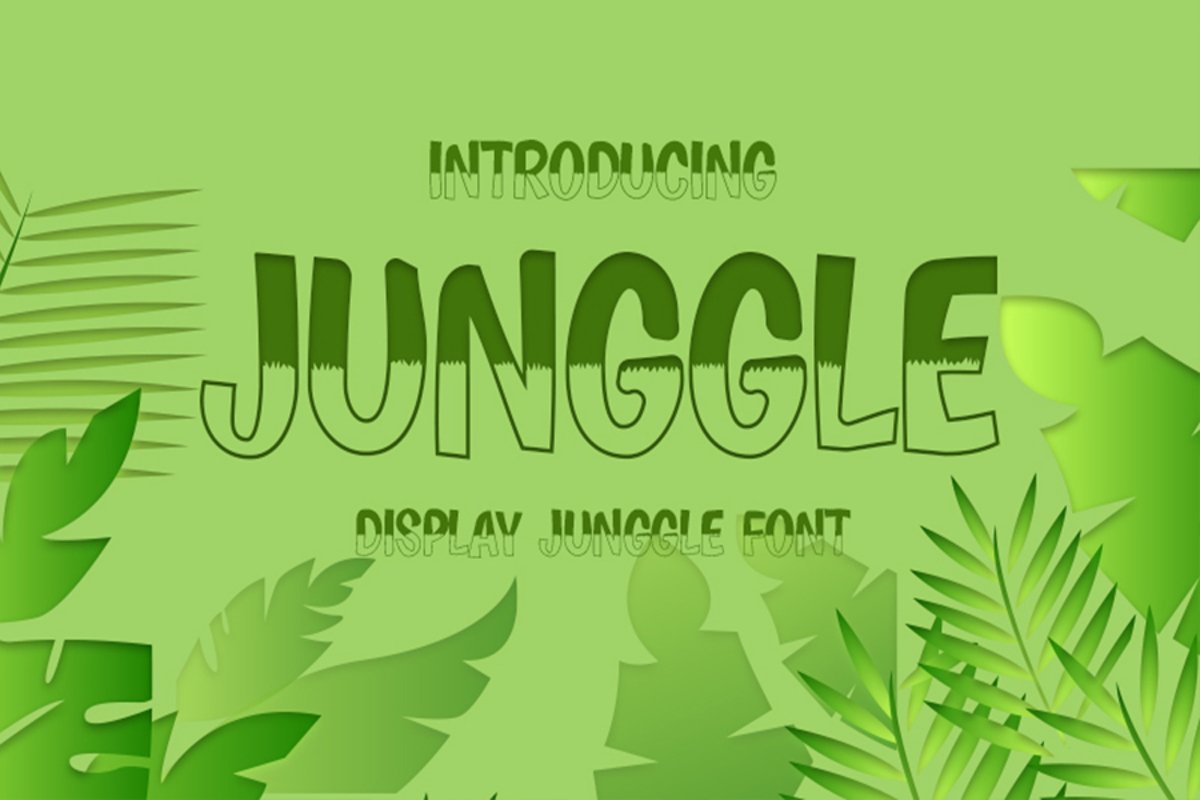
Junggle
JUNGGLE
Junggle is a fun display font. This enchanting display font will turn any creative idea into a true standout. Get creative with its childlike playfulness, and use it to brighten up any kids and school project!